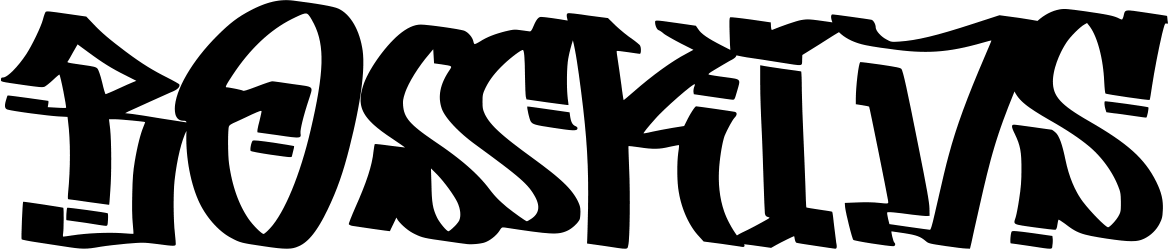
Bosskids Font
It is the right time to break the rules and take a risk by using an exclusive font like Bosskids. This is a graffiti font that does not support numbers, moreover, it doesn’t have high readability. Bosskids conveys a sense of excitement to the audience, you can use this font in designing logos.
Introducing Bosskids- A Grafiti FontThis gorgeous, stylish and artistic font can be used for a host of different content needs and projects. Make your graffiti text dance with this wonderful, rhythmic font that captures motion and is bound to call attention wherever you use it. Use it for your headings, logos, ads, printed quotes, packaging, and even your website or social media branding.